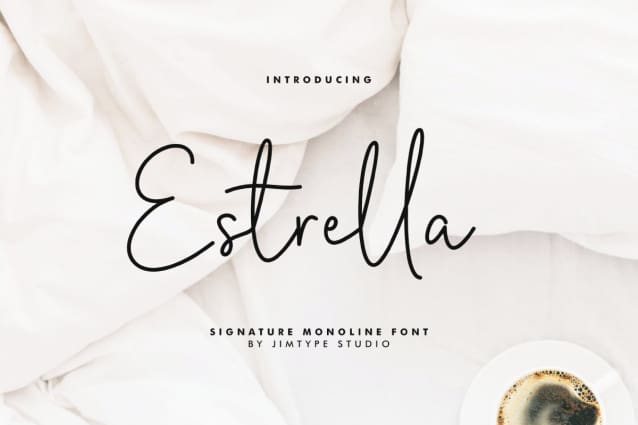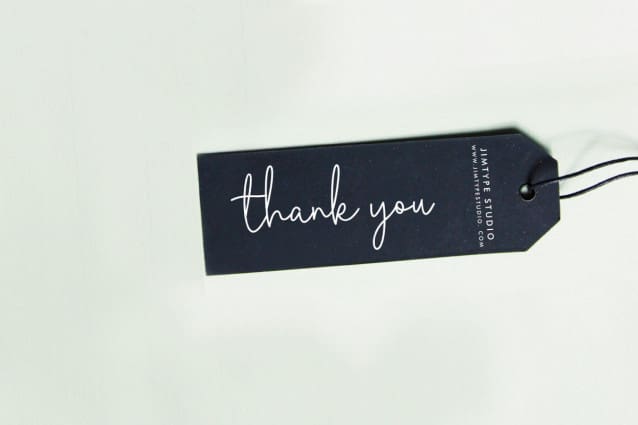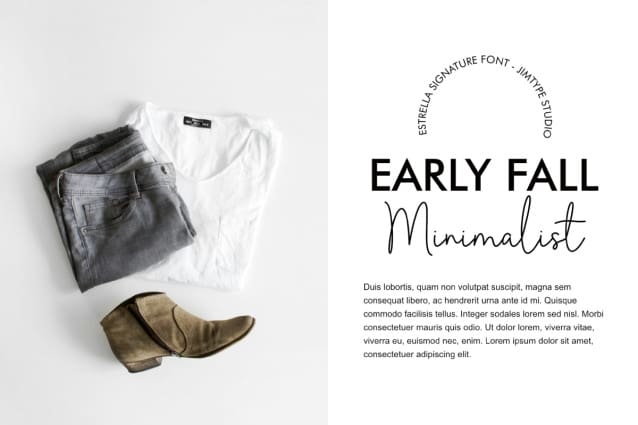
Estrella Signature Font
Estrella Signature Font – Business Branding Font from Jimtype Studio, a minimalist and stylish signature font perfect for adding elegance to your projects. Ideal for branding, labels, photography, invitations, stationery, wedding designs, social media posts, advertising, product packaging, and more. Elevate your designs with the sleek sophistication of Estrella!